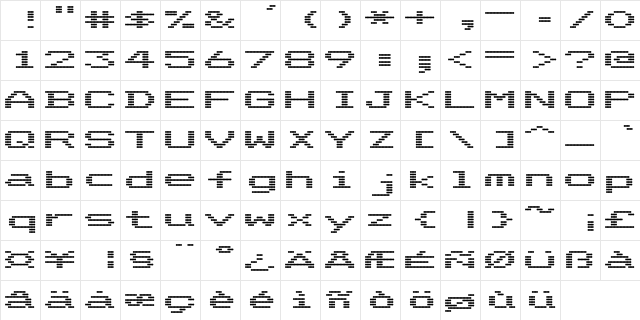
Dotrice Expanded Bold
| Foundry | His Deeds Are Dust |
| Designer | Paul Flo Williams |
| Year | 2010 |
Design Context for Dotrice Expanded Typeface
Dotrice Expanded celebrates the constraints of early digital type, turning pixel geometry into a distinctive and immediately recognisable style.
Well-suited to indie game interfaces, retro computing aesthetics, and pixel art-adjacent design work.